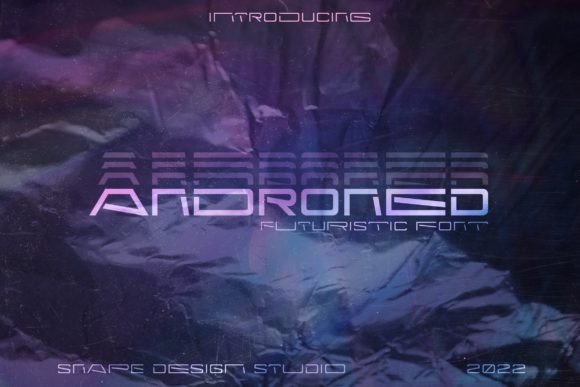
The Future of Typography: Unveiling the Androned Font
Have you ever stared at a sleek, high-tech gadget and felt inspired to create something just as futuristic and sophisticated? For designers, that moment of creative spark is what drives us to push the boundaries of innovation. And when it comes to typography, the Androned Font is the perfect catalyst for bringing that vision to life.
Androned Font is a modern, cutting-edge typeface that embodies the essence of advanced technology. Its design is a testament to the possibilities that tomorrow’s innovations hold, and it’s sure to add a luxury touch to any design project. Whether you’re working on a futuristic concept, a high-end brand, or a cutting-edge product, the Androned Font is the perfect companion to elevate your creative vision.
For designers, the Androned Font is a valuable asset that can take their projects to the next level. Its unique blend of style and sophistication makes it an ideal choice for those who want to make a lasting impression.
Androned Font Key Features
- Font Family: Androned, a sans-serif font designed for modern and futuristic designs.
- Font Size: The font family includes 8 font weights (Thin, Light, Regular, Medium, Bold, Heavy, Black, and Outline) to cater to diverse design needs.
- Unique Characteristic: Androned Font features a futuristic and edgy design, with a focus on clean lines, geometric shapes, and a bold aesthetic.
- Language Support: Supports multiple languages, including Latin, Cyrillic, and Greek alphabets, making it suitable for international designs.
Androned Font Review
Overall, I’m impressed with the Androned font. It’s a modern sans-serif font that’s perfect for digital designs. The font has a clean and futuristic feel to it. ✨ The bold weights are particularly striking and add a lot of visual interest to the design.
- Modern and futuristic feel
- Sharp and clean lines
- Bold weights add visual interest
- Good for digital designs
- May not be suitable for traditional or formal designs
- Some characters may be difficult to read at small font sizes
- Lack of italic and bold-italic styles
Despite the limitations, I think the Androned font is a great choice for modern digital designs. The font is well-designed and has a lot of potential for creative use. With a few tweaks to address the limitations, I think this font could be a real showstopper.
The Androned Font is a modern and sleek font that is ideal for:
- Business and corporate branding
- Technology and gaming logos
- Modern and futuristic designs
For the best results with the Androned Font, keep the following tips in mind:
- Use it in conjunction with other modern fonts for a cohesive look.
- Use it sparingly to avoid overwhelming the viewer.
Alternatives to Androned Font
Montserrat is a sans-serif font designed by Julieta Ulanovsky. It’s a modern, geometric font perfect for titles, headings, and body text. Montserrat is more geometric and clean compared to Androned Font, making it ideal for digital and print media.
When to use: Titles, headings, body text in digital and print media.
Comparison: Montserrat is more geometric and clean, while Androned Font has a more rounded and elegant feel.
Open Sans is a sans-serif font designed by Steve Matteson. It’s a clean, modern font suitable for body text and titles. Open Sans is more readable and accessible compared to Androned Font, making it ideal for web and mobile applications.
When to use: Body text, titles in web and mobile applications.
Comparison: Open Sans is more readable and accessible, while Androned Font has a more decorative feel.
Lato is a sans-serif font designed by Łukasz Dziedzic. It’s a modern, elegant font suitable for titles and body text. Lato is more elegant and refined compared to Androned Font, making it ideal for print media and branding.
When to use: Titles, body text in print media and branding.